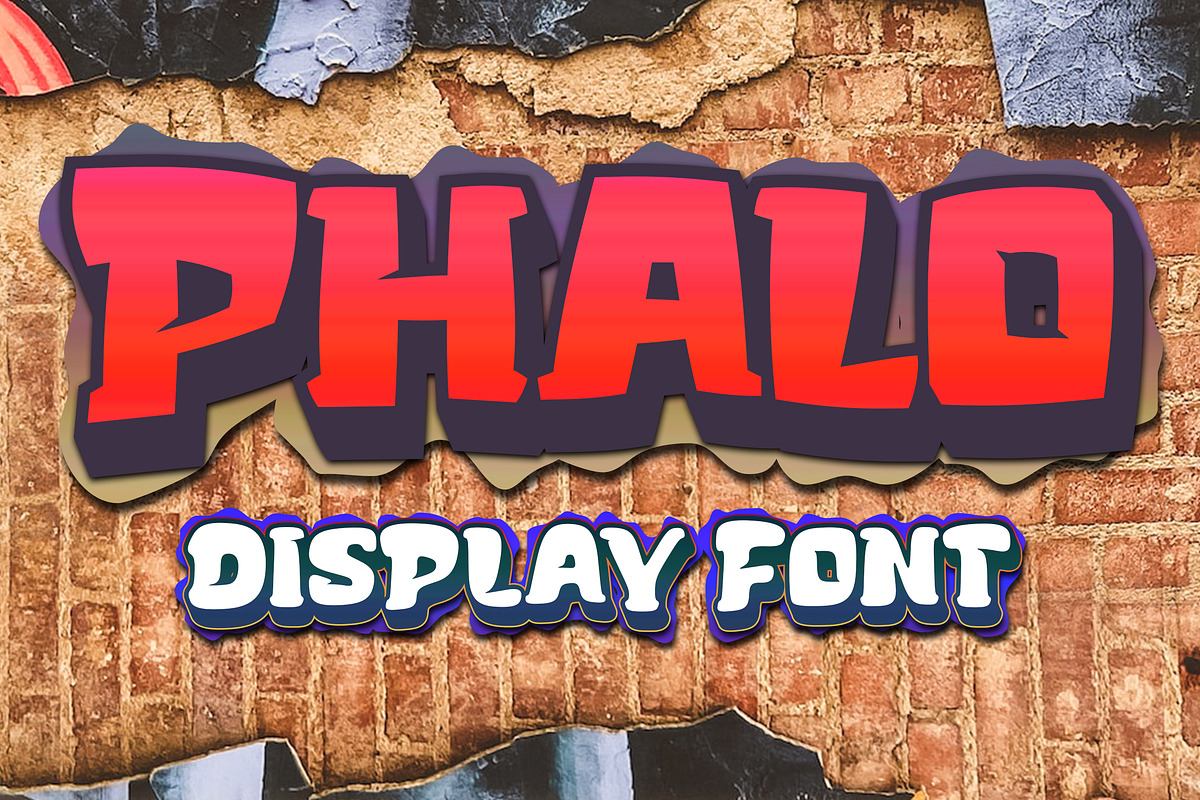
You must purchase this font for commercial use. However, you can download it for free to test its distinctive style and quality. Phalo - Display Font Free Download is perfect for graphic designers and typography enthusiasts seeking a modern yet elegant touch for branding projects, logo creation, posters, and digital art. With its bold, artistic strokes and contemporary appearance, Phalo offers an expressive edge ideal for headlines and standout visuals. This unique display font ensures readability while adding a creative flair to your designs, capturing audience attention effectively. Whether you're working on social media content, packaging, or promotional materials, Phalo delivers remarkable results. Enhance your projects instantly and attract viewers with its striking, sophisticated aesthetic. Stand apart from competitors by incorporating this exceptional typeface into your design toolkit. Phalo - Display Font Free Download enables you to experiment with its versatility, demonstrating its potential to elevate various design styles and themes. Explore the possibilities today by downloading Phalo for free and see firsthand how it transforms your creative work.